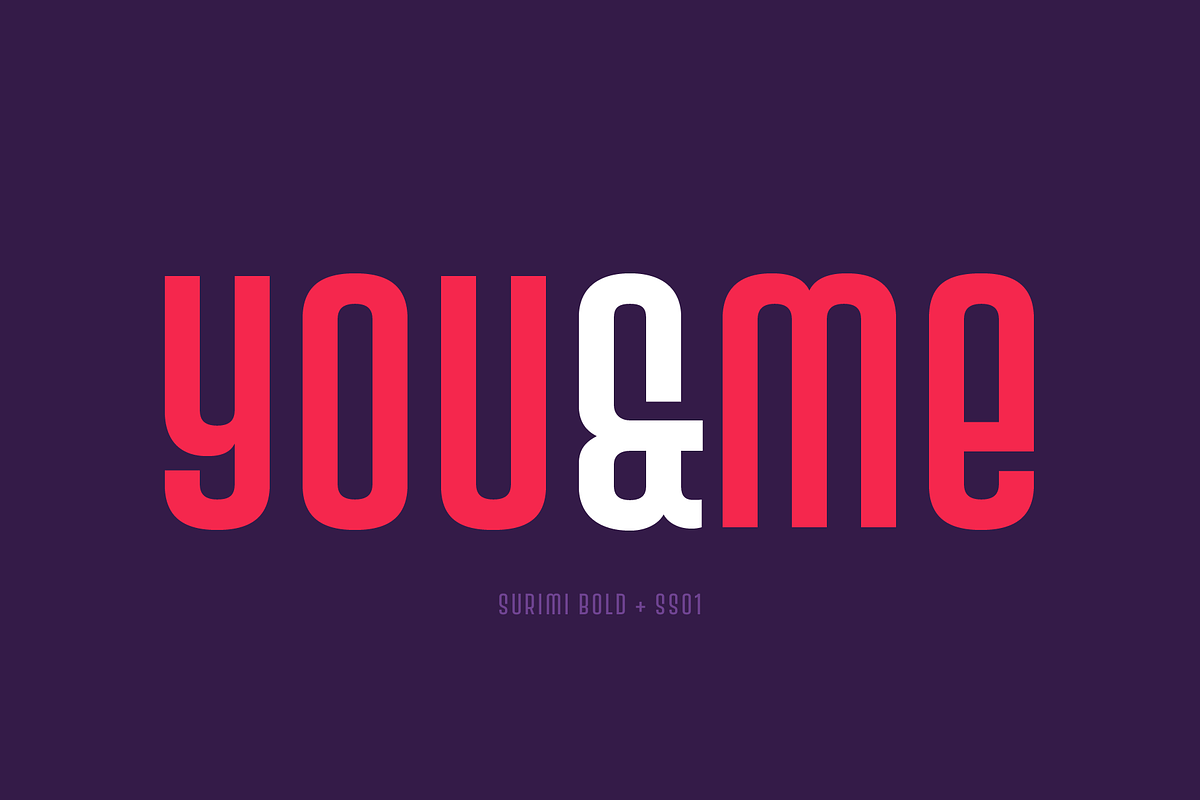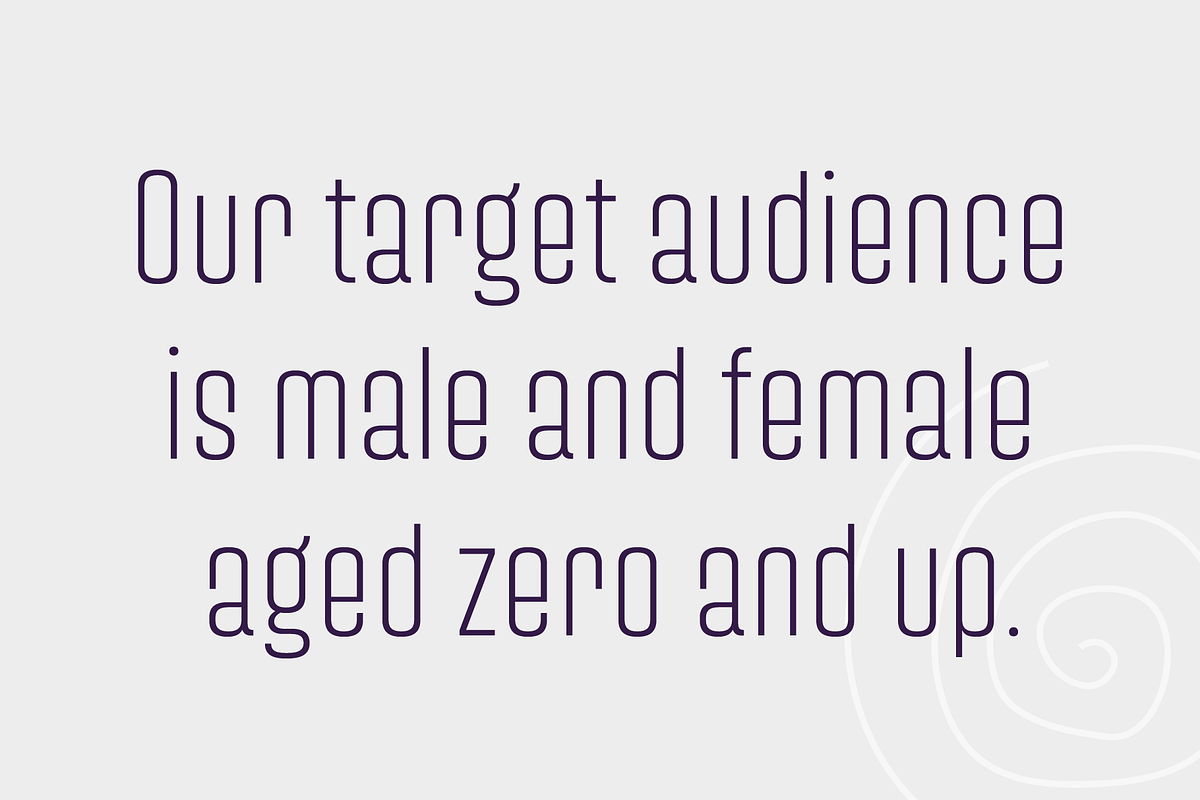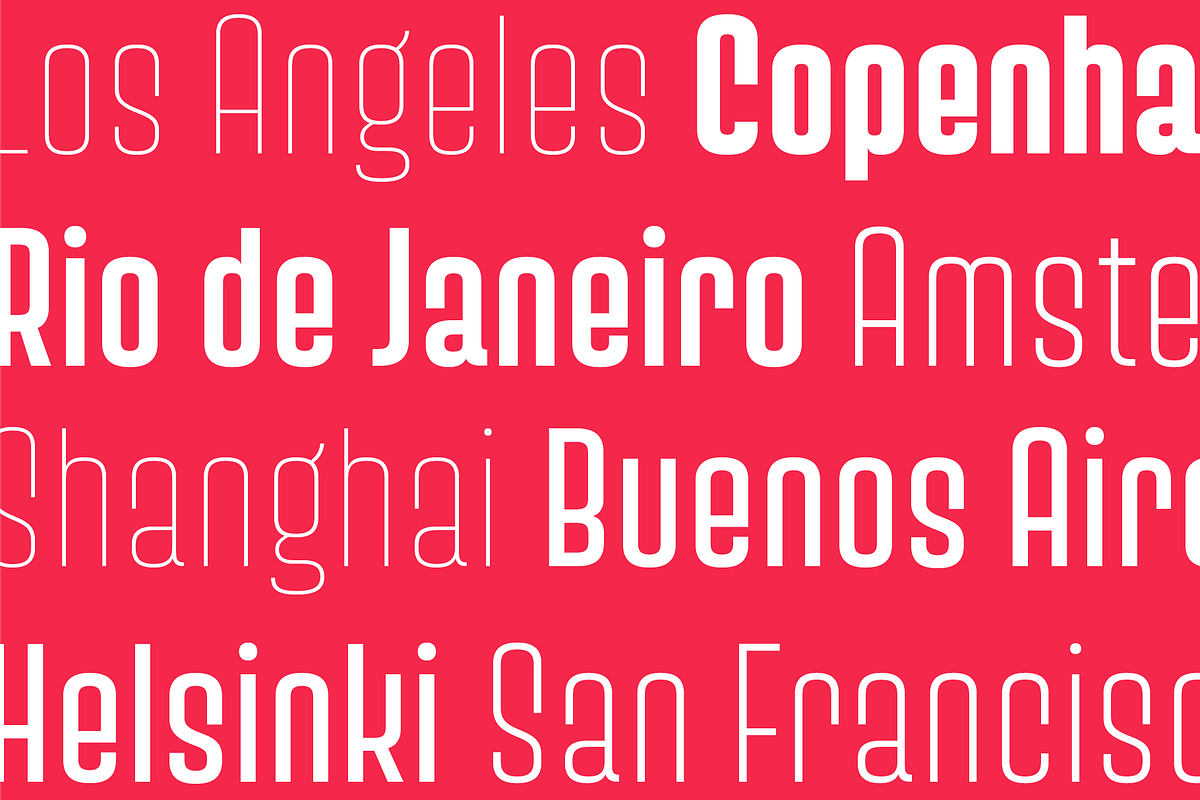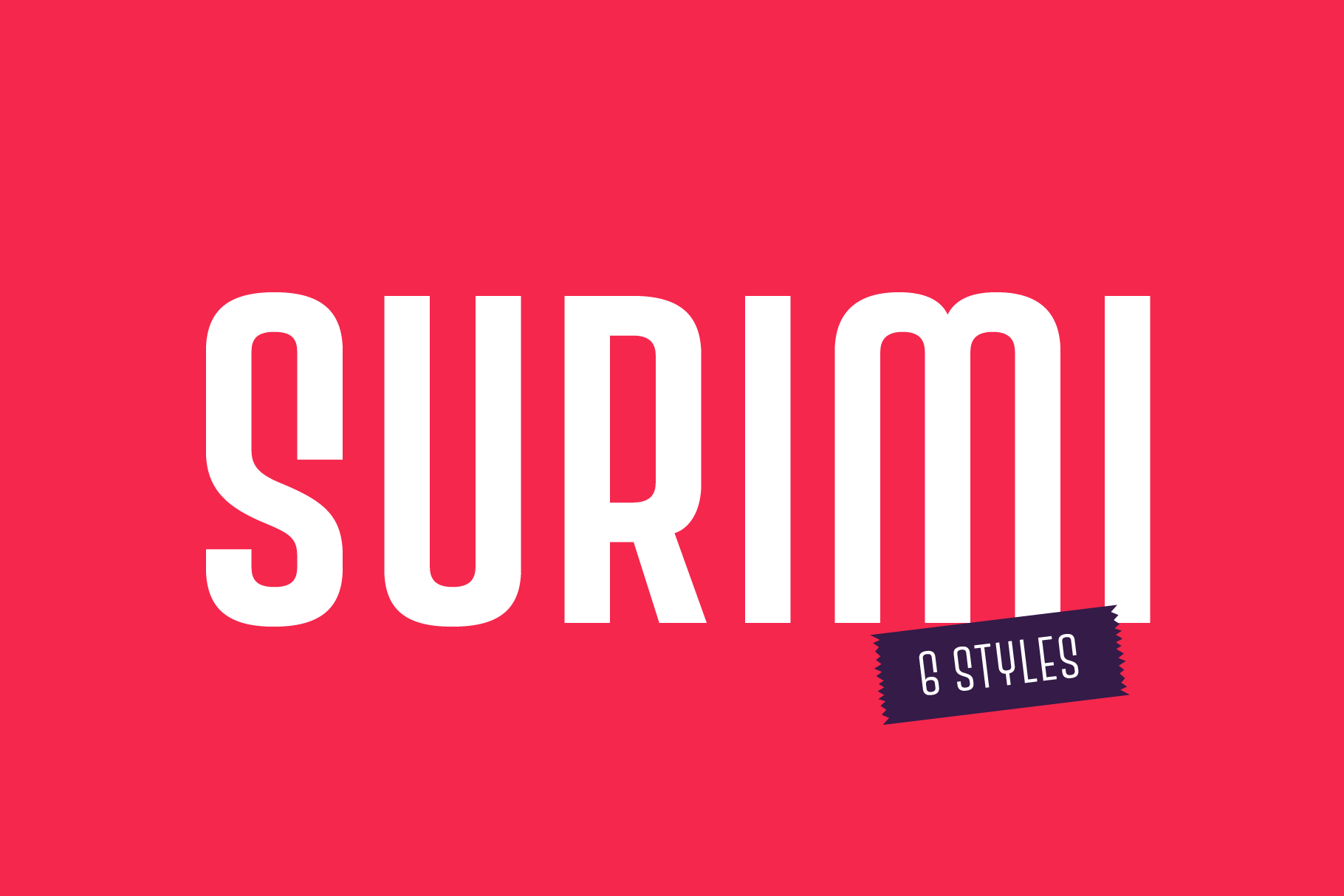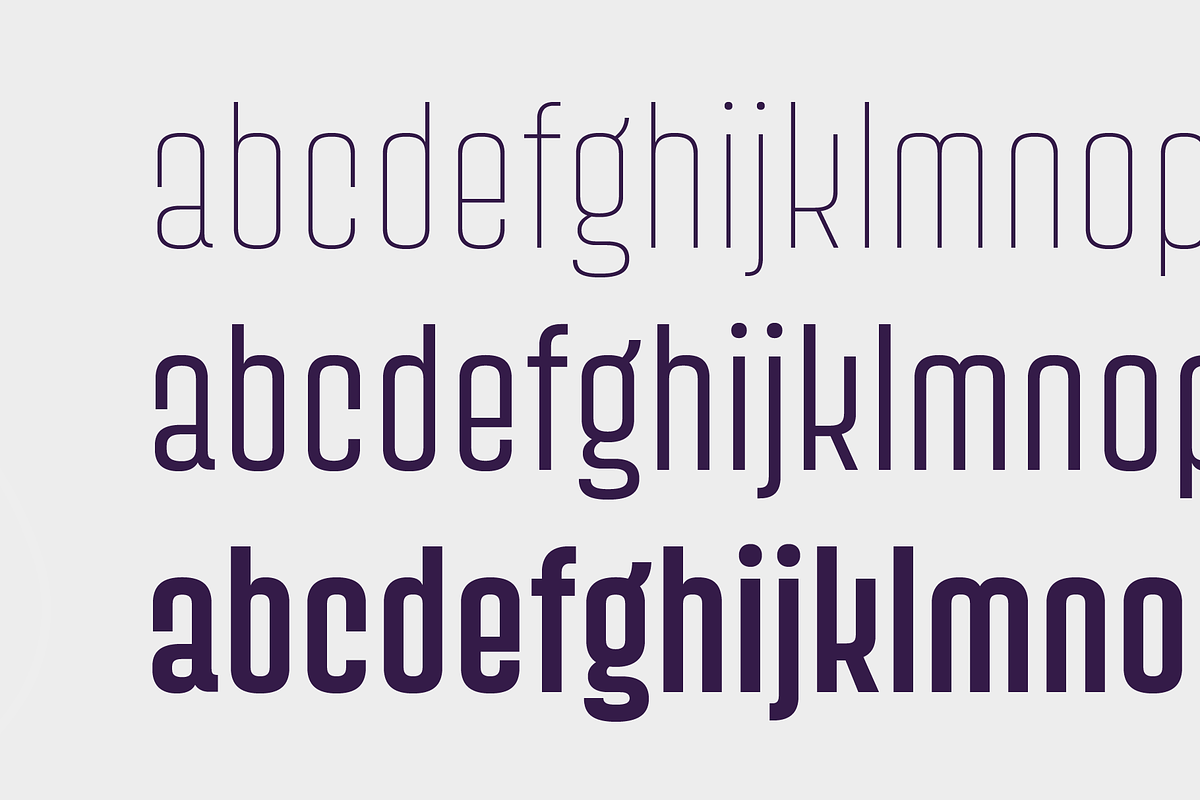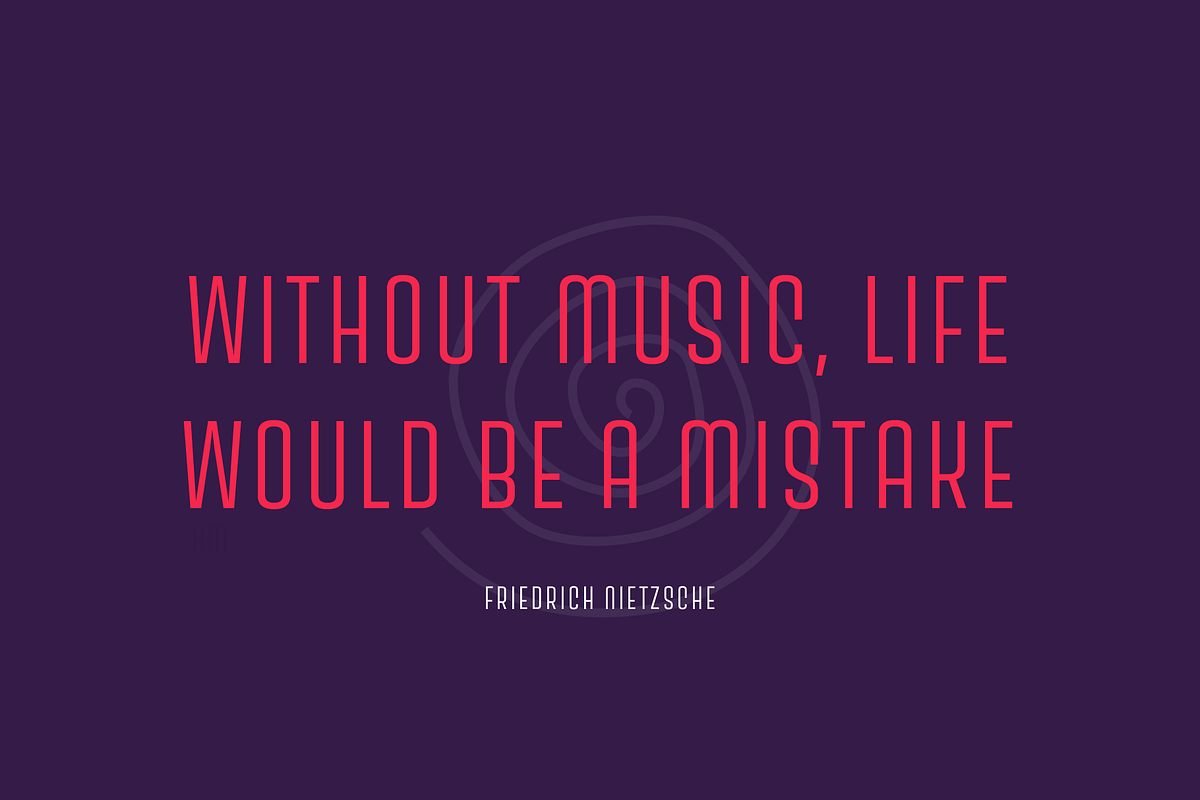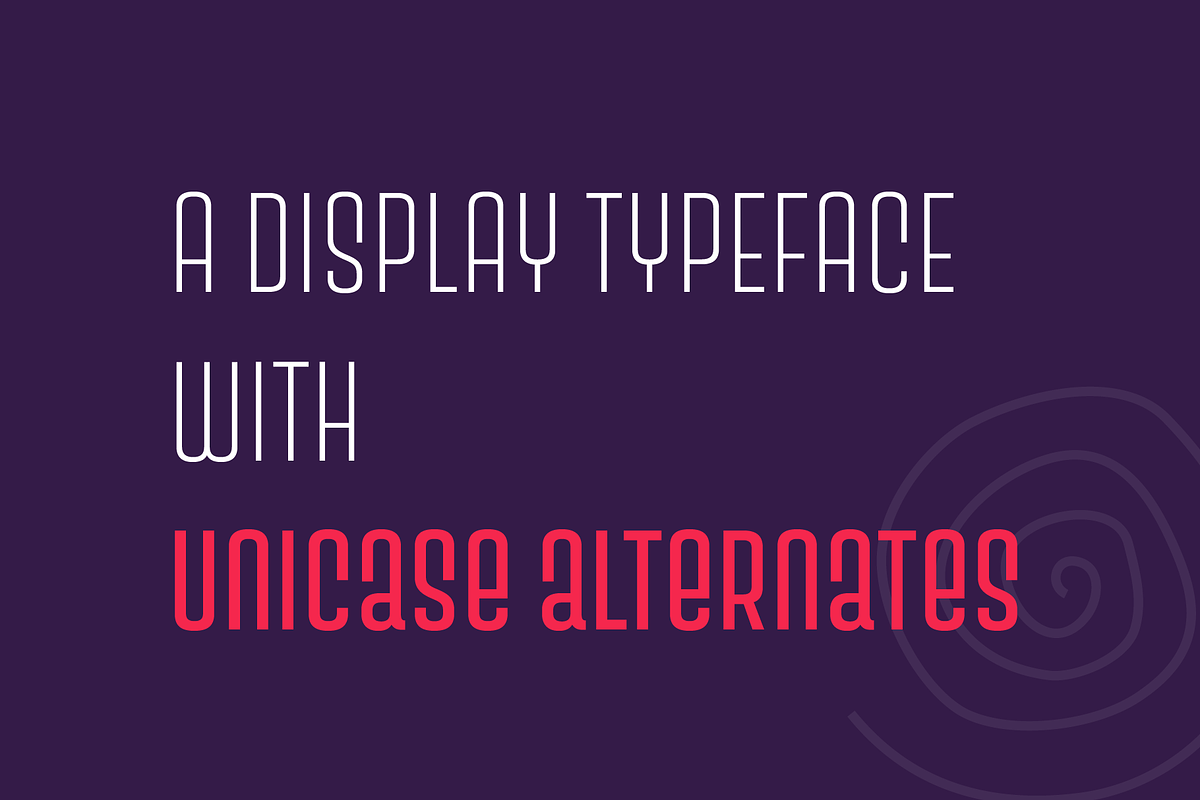
Surimi typeface
Surimi is a condensed display typeface in six styles. Designed to stand out with its low crossbars and unicase alternates, this cool little family will be great for titling and logotypes.